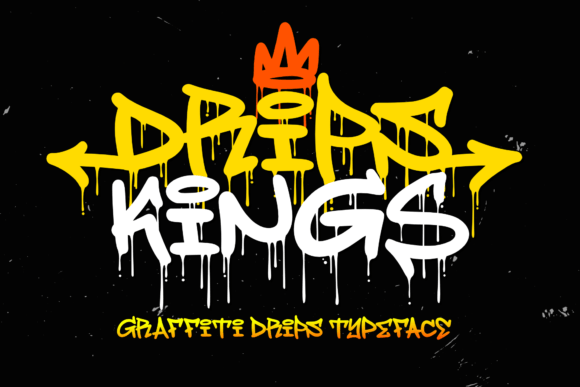
Drips Kings Font: Elevate Your Designs with a Cool Street-Styled Display Font
In the world of typography, fonts play a crucial role in conveying the tone and personality of a design. When it comes to creating visually striking and attention-grabbing content, having the right font can make all the difference. This is where Drips Kings Font comes in – a cool street-styled display font with a dripped style, inspired by the vibrant and dynamic world of graffiti art.
The Inspiration Behind Drips Kings Font
Graffiti art has long been a staple of urban culture, providing a platform for self-expression and creativity. The unique style of graffiti, characterized by bold lines, vibrant colors, and a sense of rebelliousness, has captivated audiences worldwide. Drips Kings Font takes inspiration from this art form, distilling its essence into a digital font that can be used to elevate any design.
What Makes Drips Kings Font Special?
So, what sets Drips Kings Font apart from other fonts? Here are a few key features that make it an incredible asset to your font library:
- Unique Dripped Style: The font’s dripped style, reminiscent of graffiti art, adds a touch of edginess and coolness to any design.
- Street-Styled Aesthetic: The font’s street-styled aesthetic makes it perfect for designs that require a bold and urban feel.
- High Versatility: Whether you’re working on a logo, poster, or social media graphic, Drips Kings Font can adapt to any design need.
- Easy to Read: Despite its bold and artistic style, Drips Kings Font remains easy to read, making it perfect for headlines, titles, and short texts.
How to Use Drips Kings Font in Your Designs
Now that we’ve covered the features and benefits of Drips Kings Font, let’s dive into some practical examples of how to use it in your designs:
Logo Design
Drips Kings Font can be used to create a bold and eye-catching logo that’s sure to grab attention. Its unique dripped style and street-styled aesthetic make it perfect for brands that want to convey a sense of edginess and coolness.
Poster Design
When it comes to poster design, Drips Kings Font can be used to create bold and attention-grabbing headlines. Its high versatility and easy readability make it perfect for posters that need to convey a message quickly and effectively.
Social Media Graphics
Drips Kings Font can also be used to create engaging social media graphics that stand out from the crowd. Its street-styled aesthetic and dripped style make it perfect for Instagram, Facebook, and Twitter graphics that need to grab attention.
Tips and Tricks for Using Drips Kings Font
Here are some tips and tricks to help you get the most out of Drips Kings Font:
- Experiment with Colors: Drips Kings Font looks great in bold and bright colors. Experiment with different color combinations to find the one that works best for your design.
- Play with Textures: Adding textures to your design can enhance the overall aesthetic of Drips Kings Font. Try combining it with different textures to create a unique look.
- Use it Sparingly: While Drips Kings Font is a versatile font, it’s best used sparingly. Use it for headlines and titles, and pair it with a simpler font for body text.
In conclusion, Drips Kings Font is a cool street-styled display font with a dripped style, inspired by graffiti art. Its unique features, high versatility, and easy readability make it an incredible asset to your font library. Whether you’re working on a logo, poster, or social media graphic, Drips Kings Font can elevate any design and help you create visually striking content.